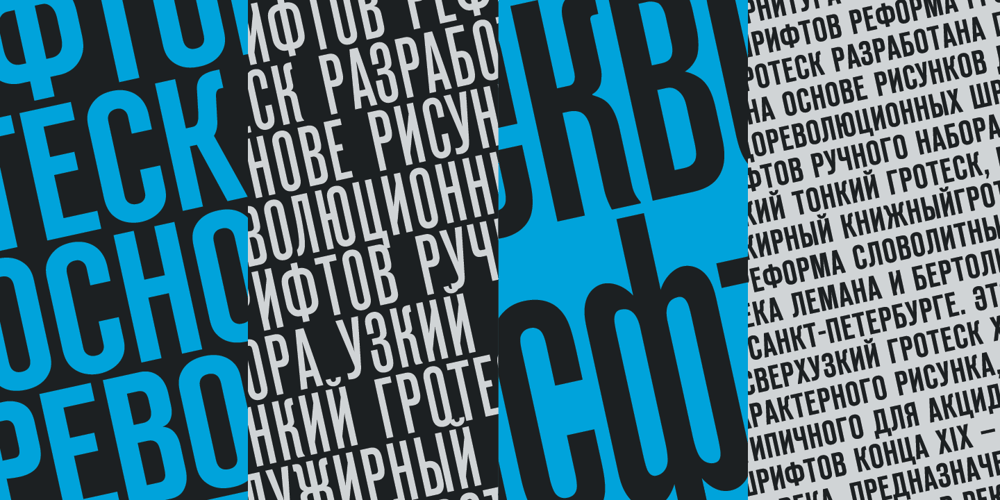
Reforma Grotesk Font Family was designed by Albert Kapitonov and published by ParaType. Reforma Grotesk contains 4 styles and family package options. PT Reforma Grotesk was designed for ParaType in 1999 by Albert Kapitonov based on the letterforms of Russian pre-revolutionary hand composition typefaces: Uzky Tonky Grotesk («Condensed Thin Sans»), Poluzhirny Knizhny Grotesk («Semibold Book Sans») and Reforma, of H. Berthold and O. Lehmann foundries (St.- Petersburg). This extra compressed sans serif with distinctive letter shapes is typical for display fonts of the late 19th and early 20th centuries. For use in advertising and display typography. The face got ‘Galina’ prize at Kirillitsa’99 International Type Design Competition in Moscow.